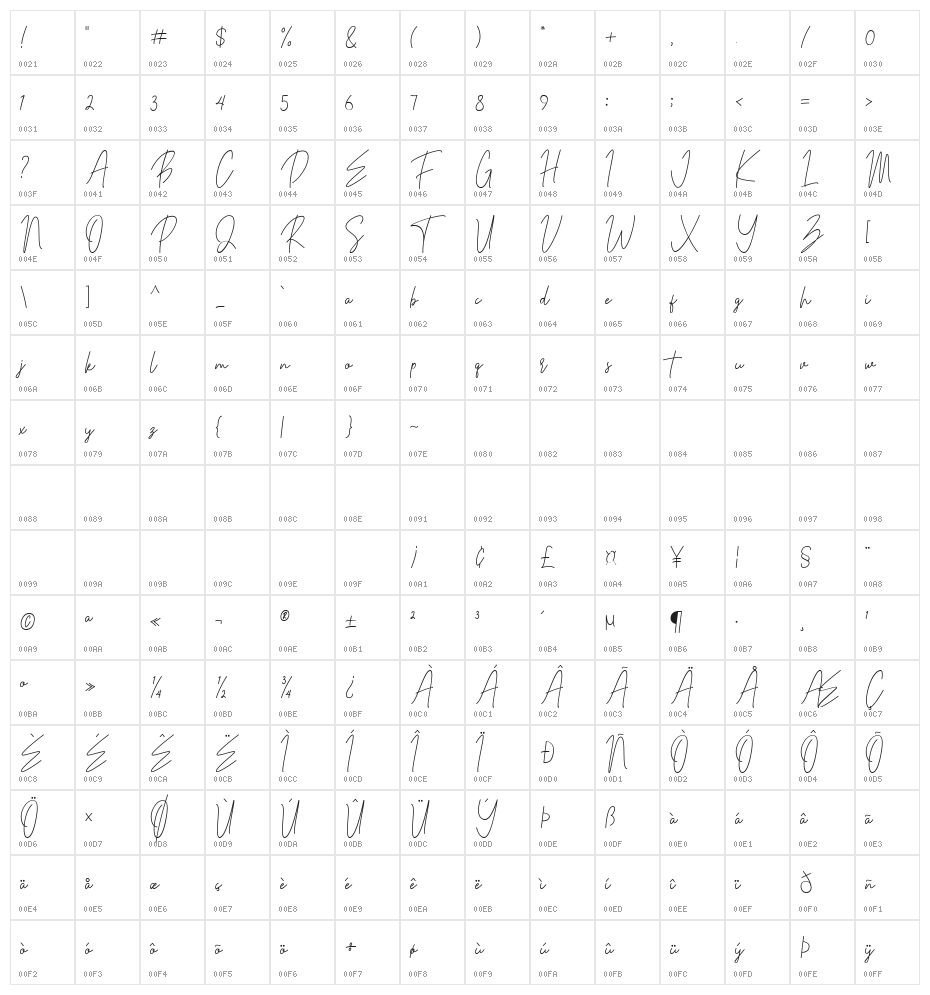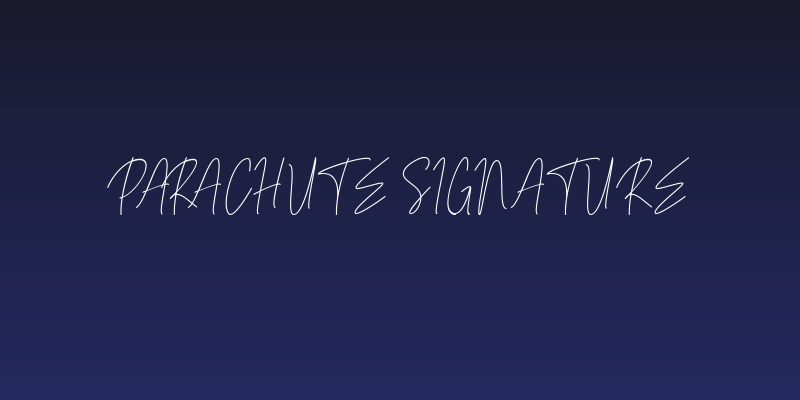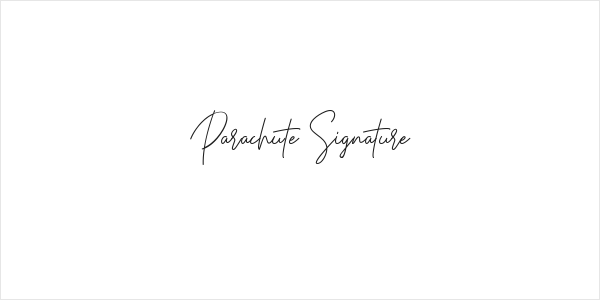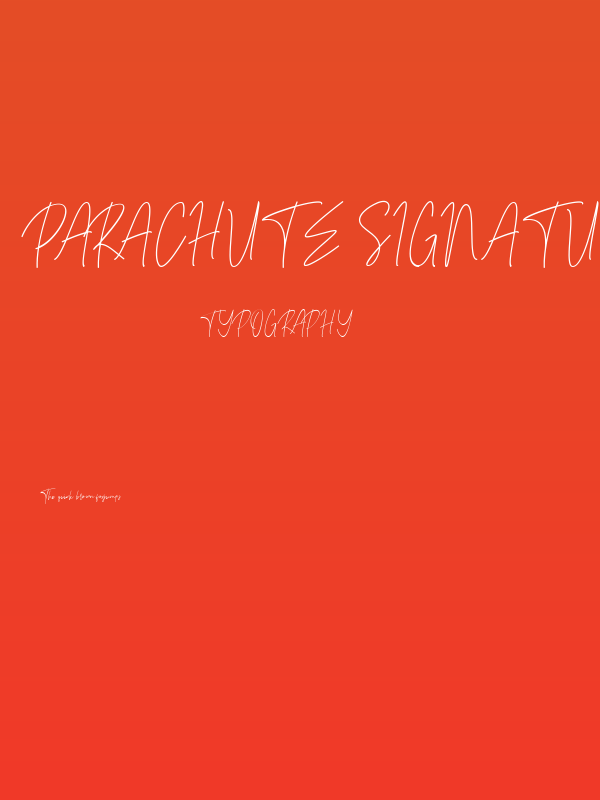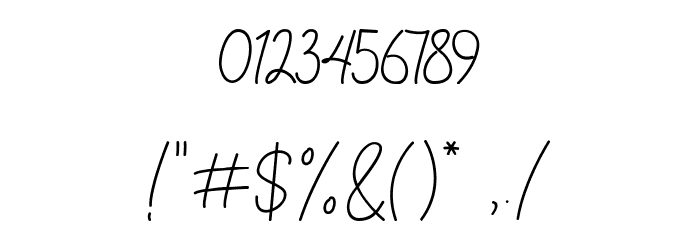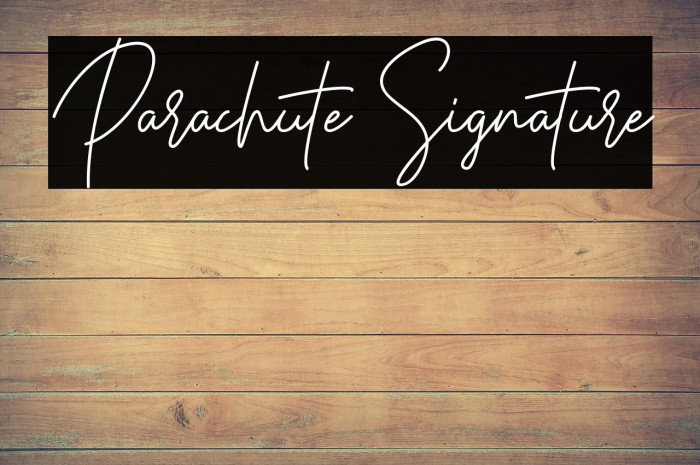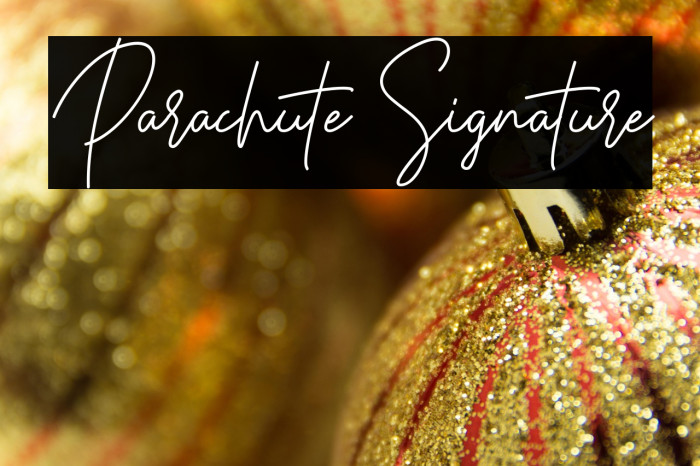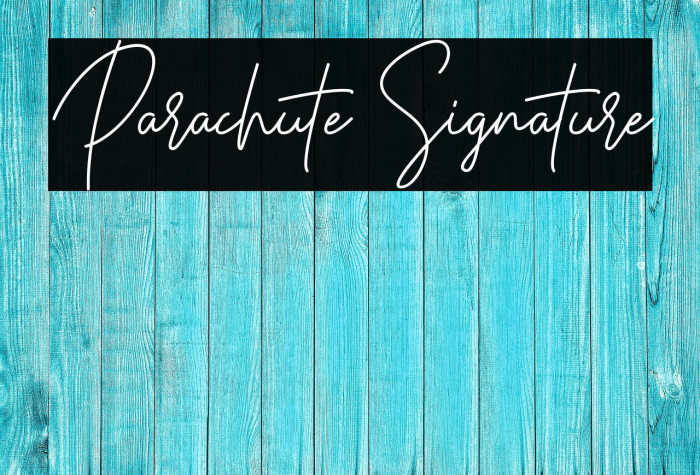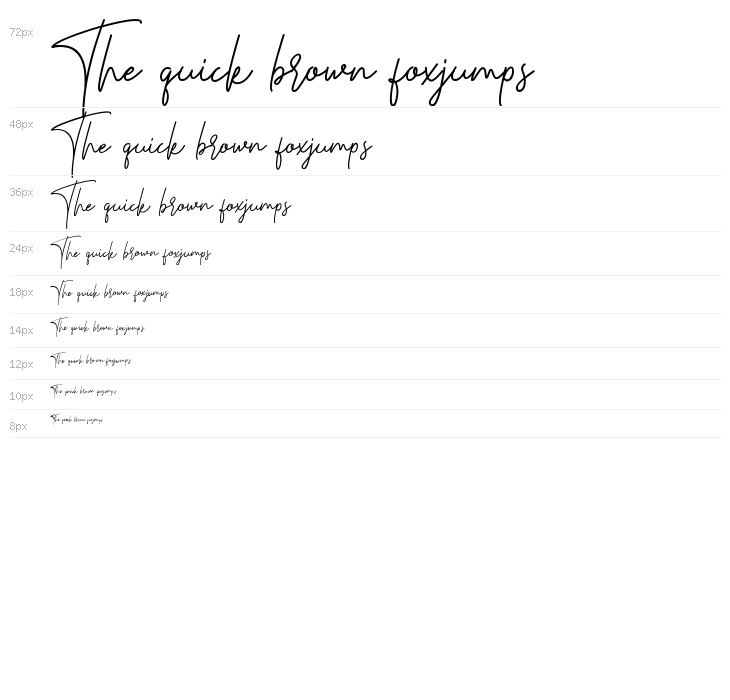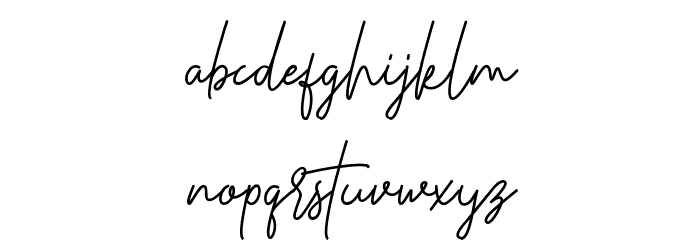
Parachute Signature Font
Parachute Signature Description
This font features a flowing, elegant script style that mimics the fluidity of handwritten text. The uppercase letters are tall and slender, with a graceful, airy appearance, while the lowercase letters maintain a consistent, smooth flow. The numbers and special characters are designed with the same attention to detail, ensuring a cohesive look across all characters. The font's overall aesthetic is sophisticated and modern, making it ideal for projects that require a touch of elegance and personal flair.
| Overall Style | Modern, Elegant |
| Proposed Projects | Ideal for wedding invitations, personal branding, elegant logos, and upscale packaging design. |